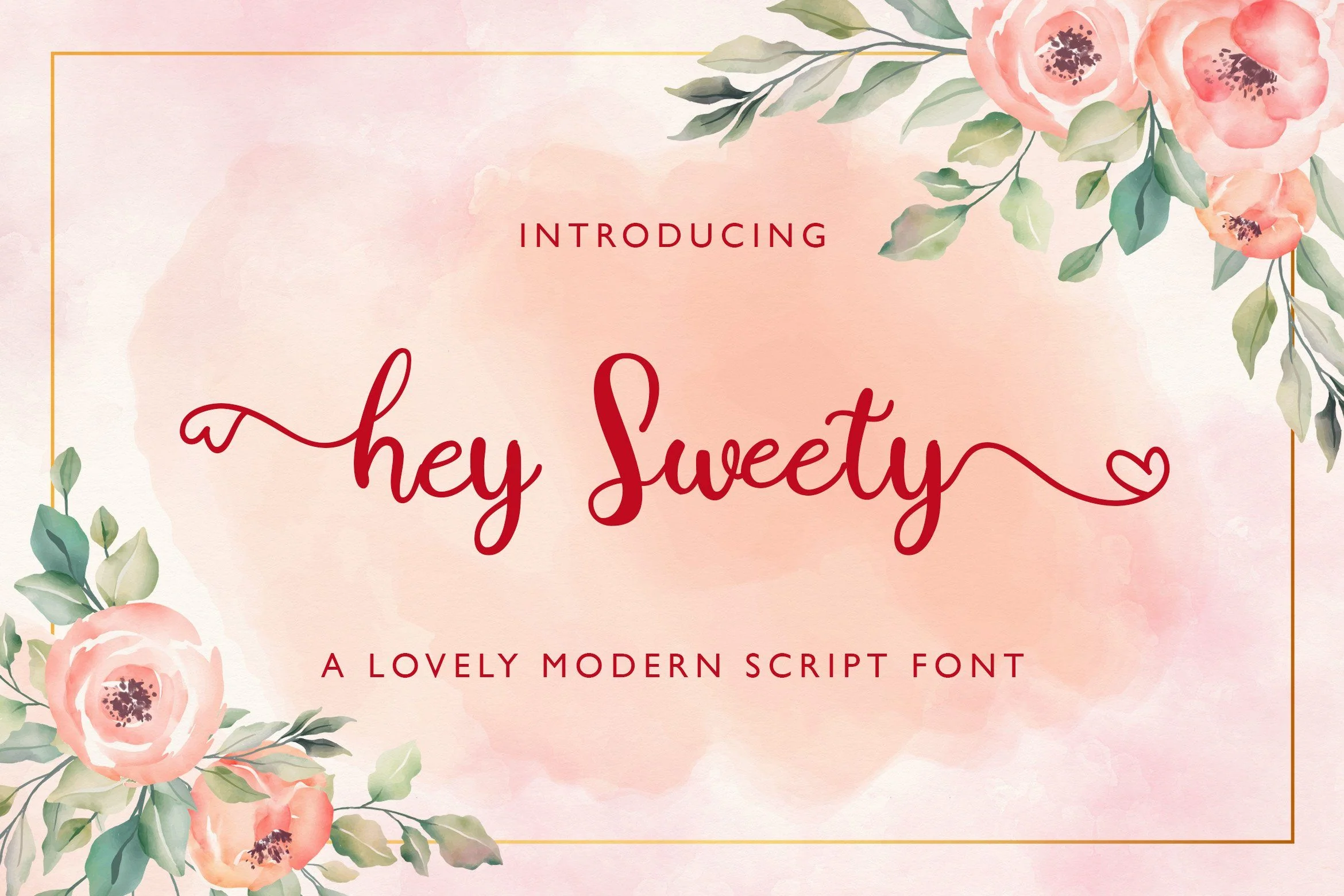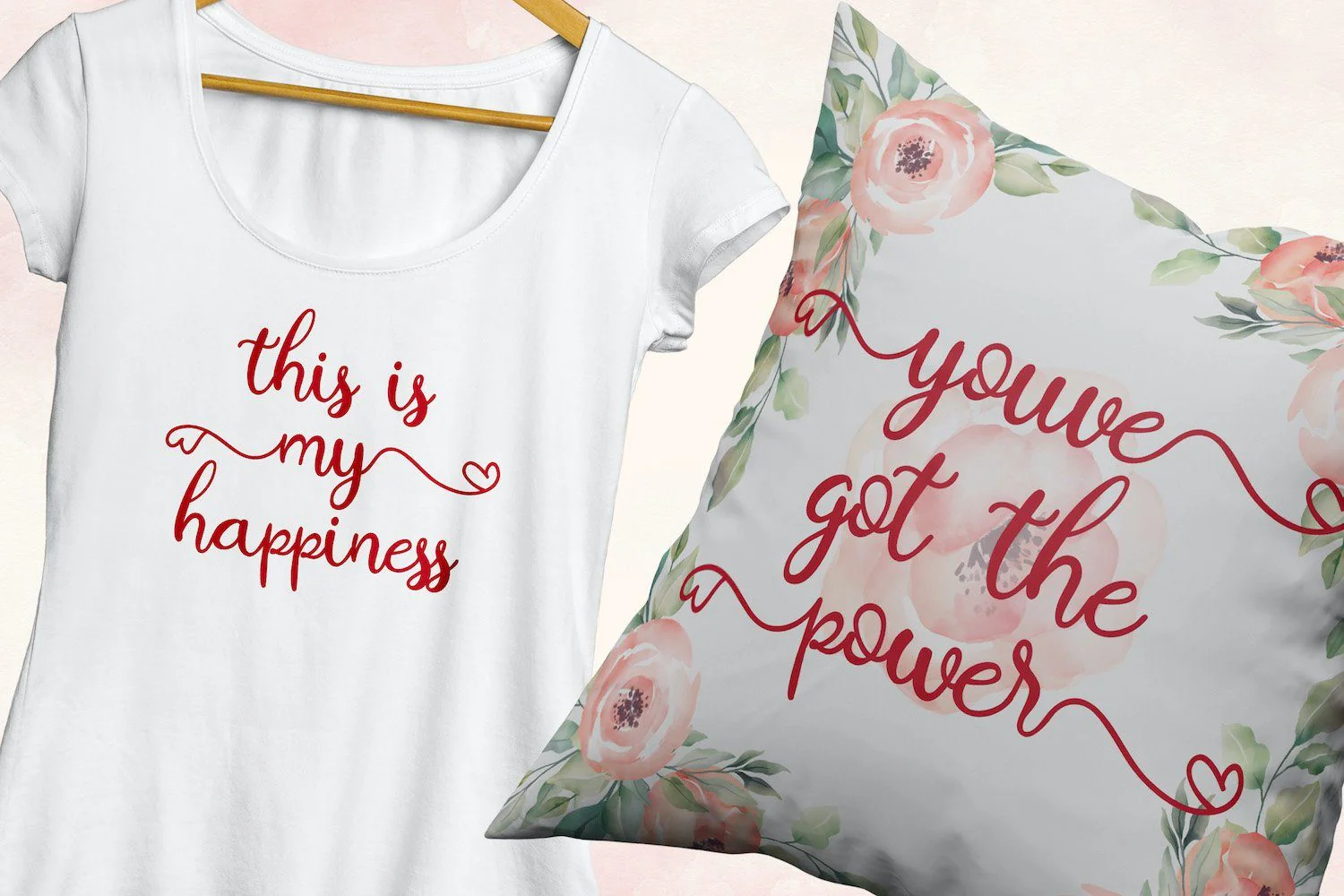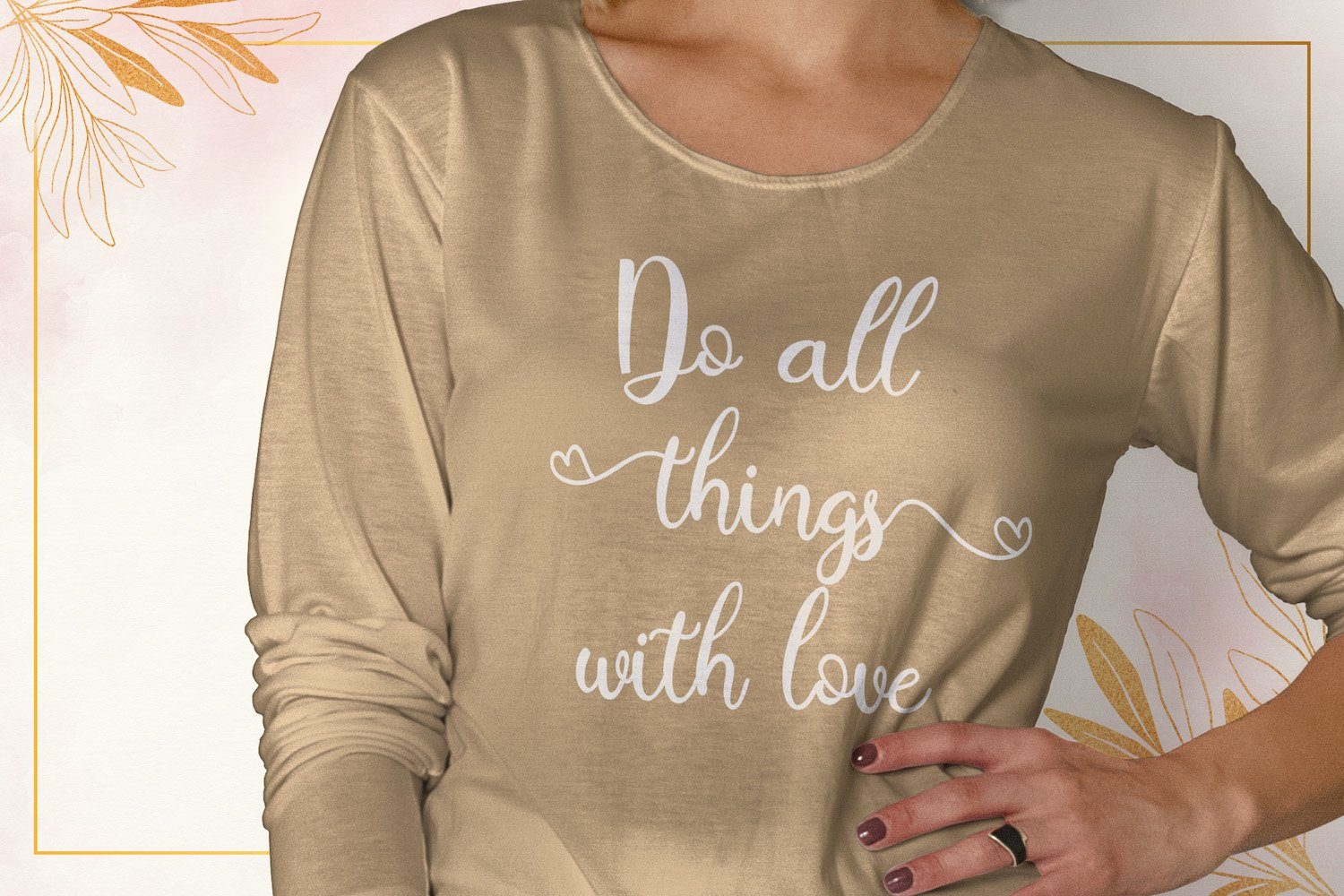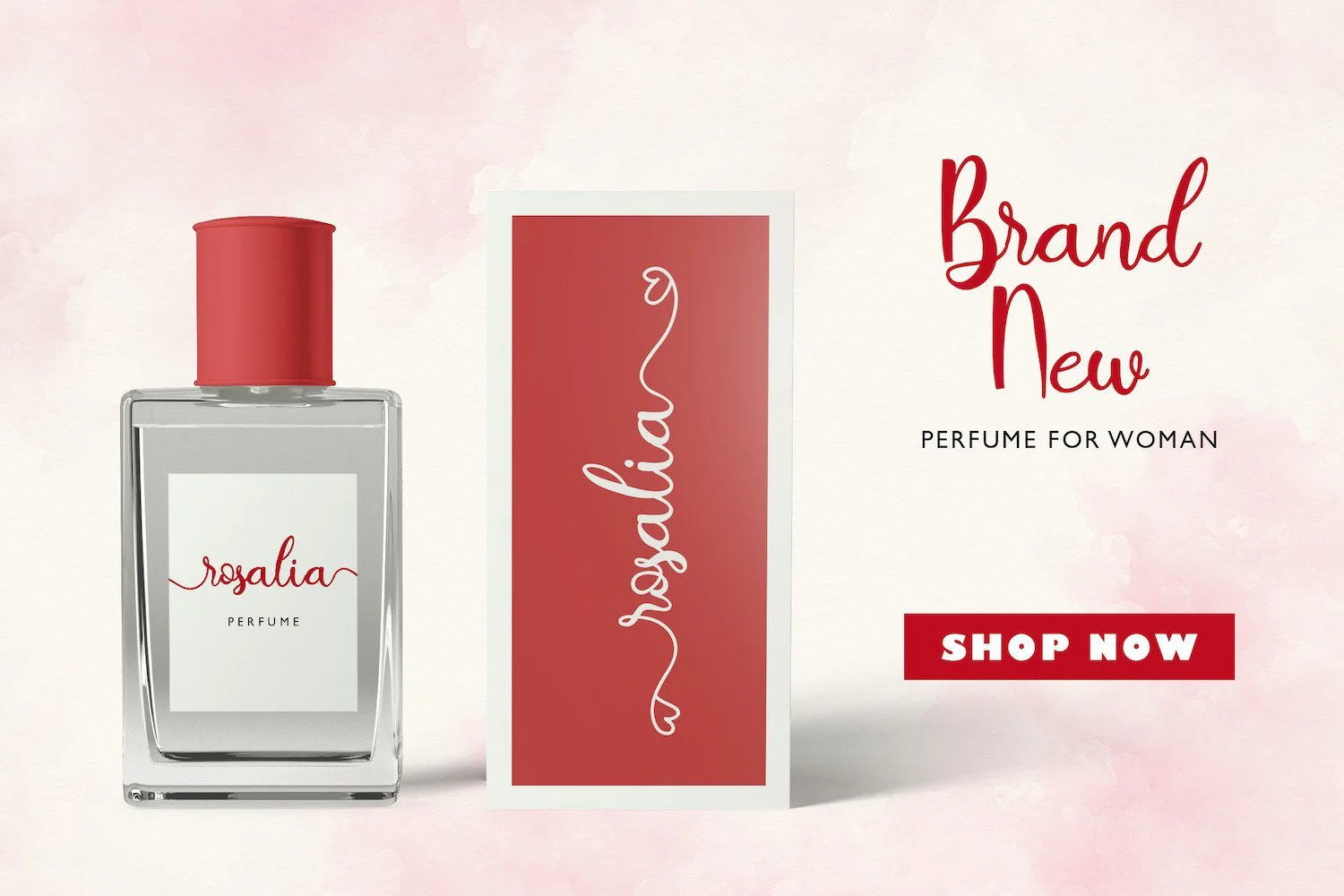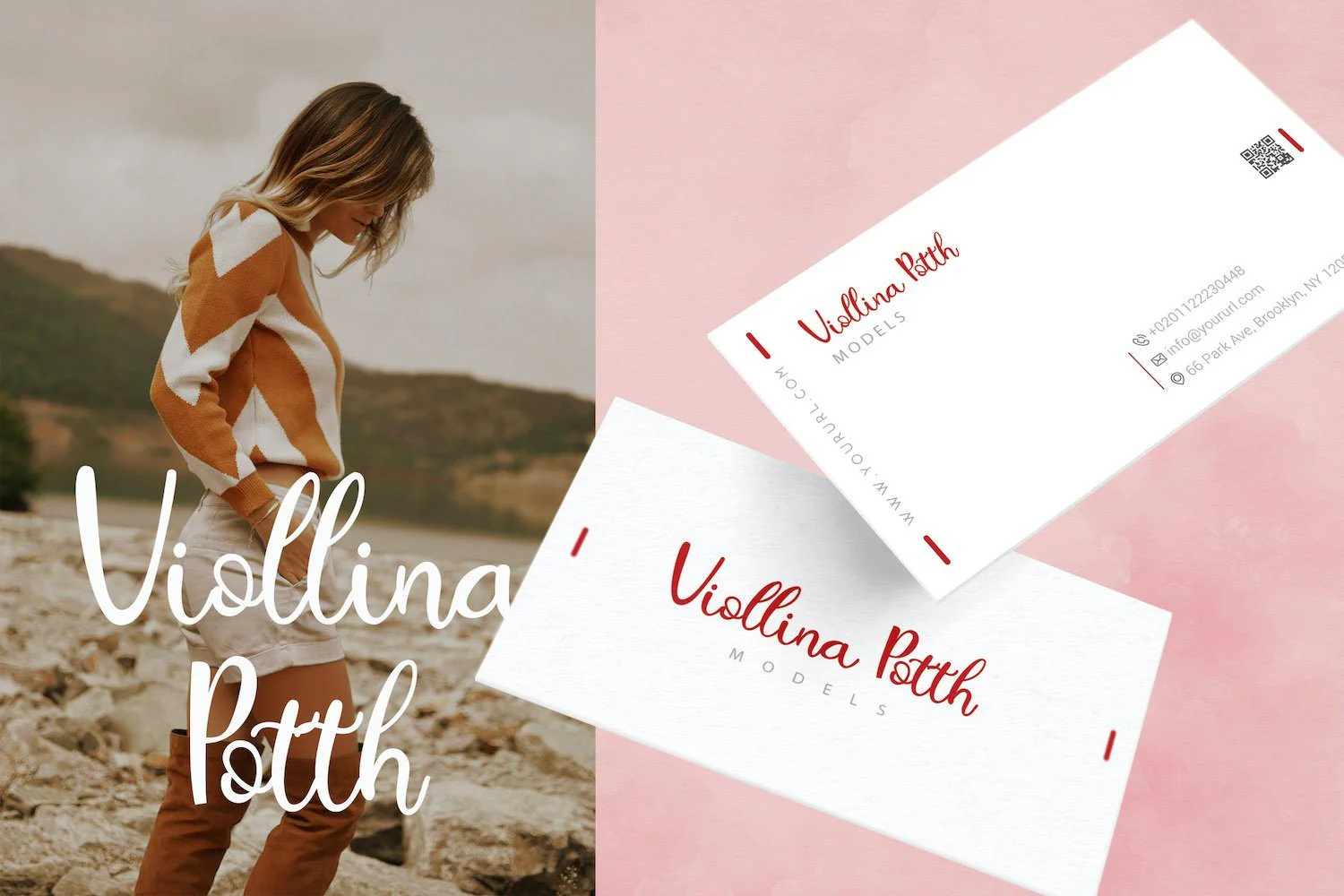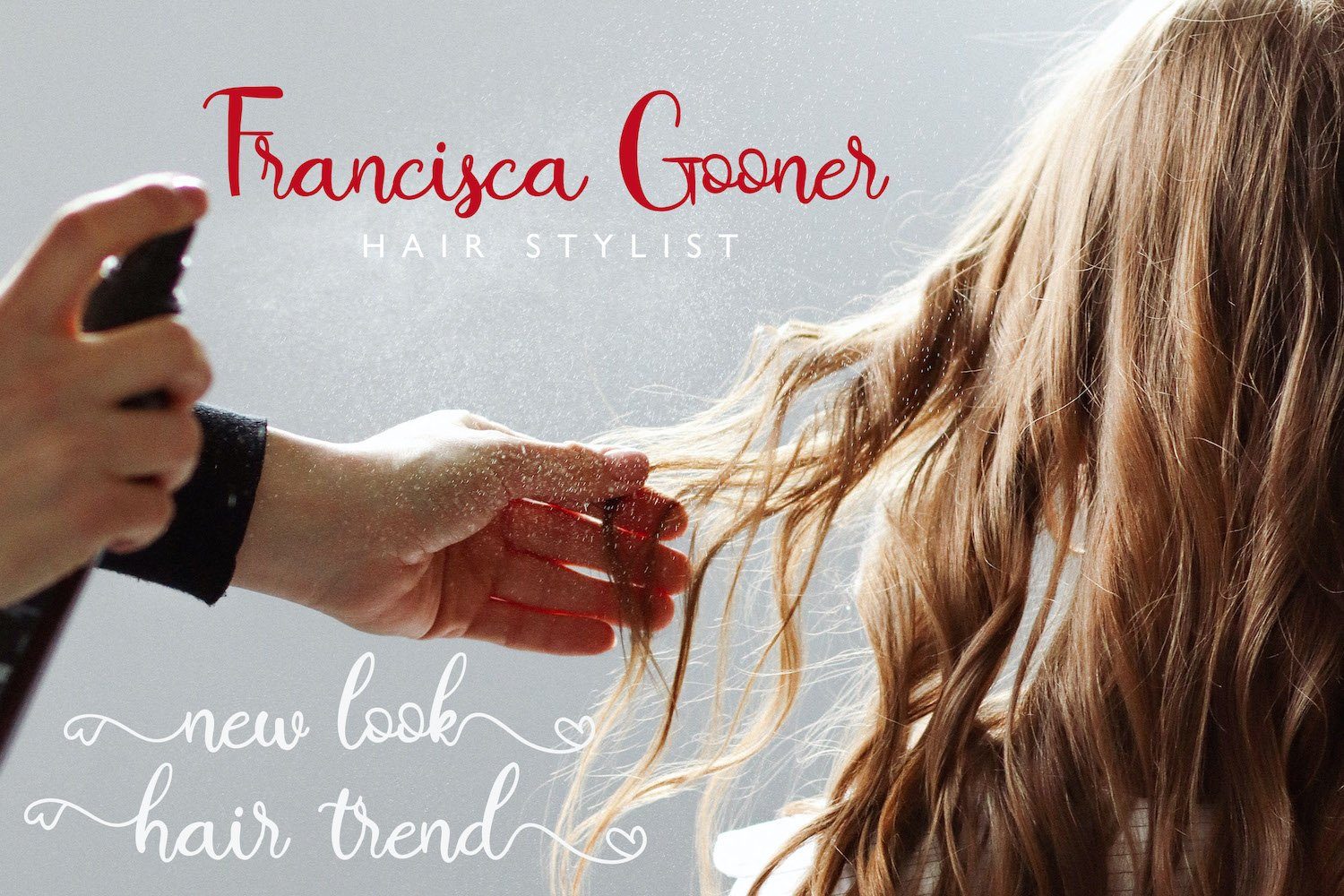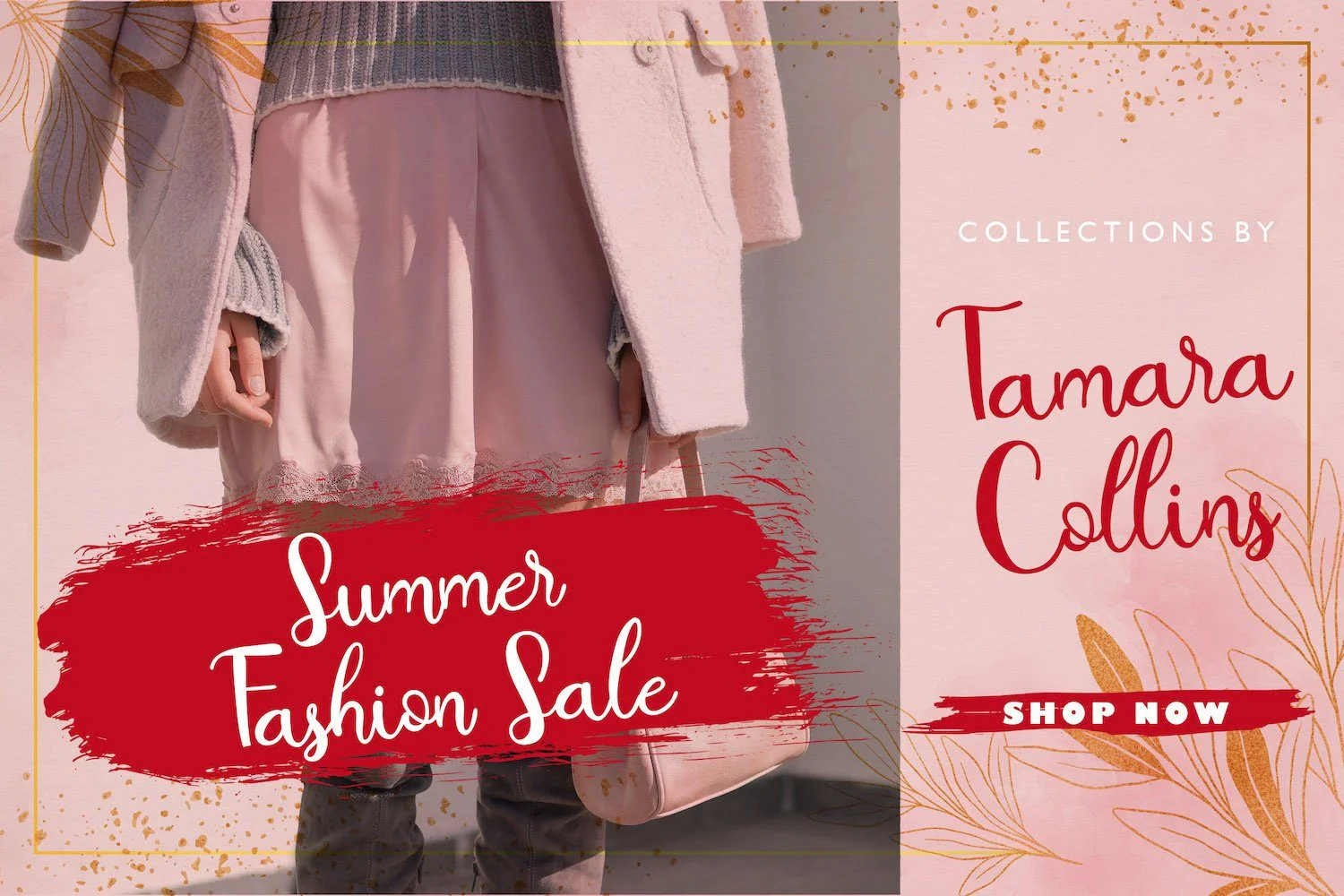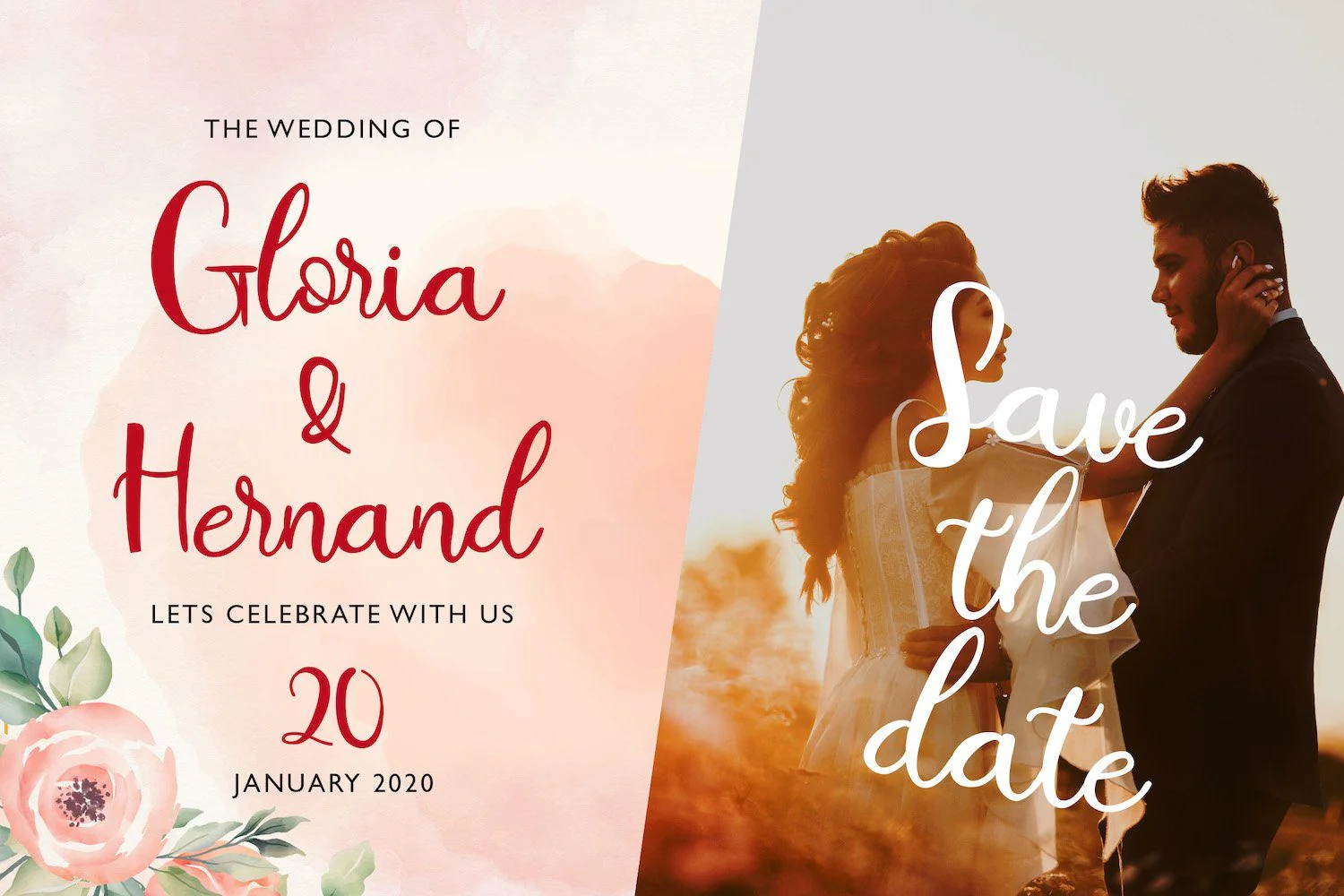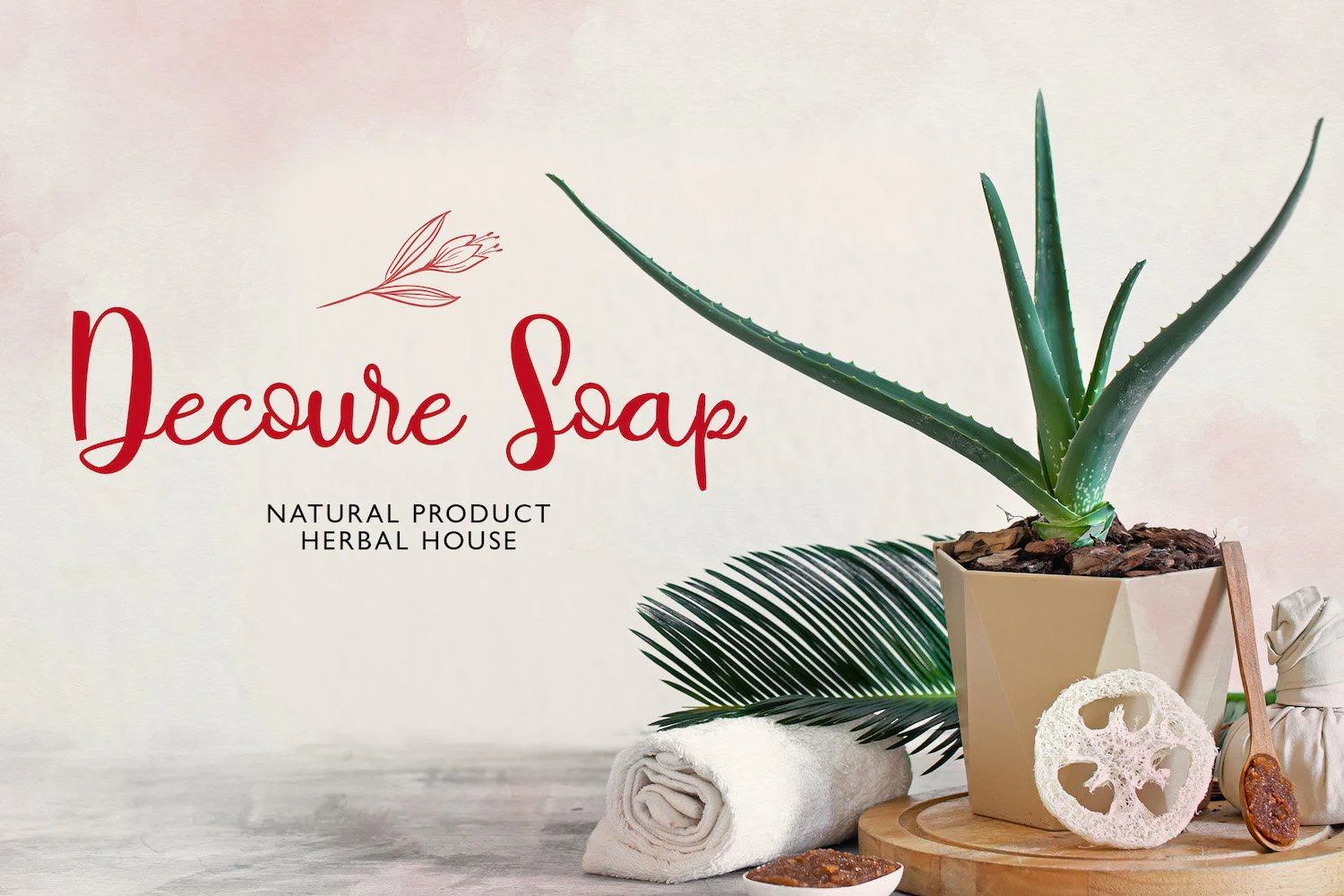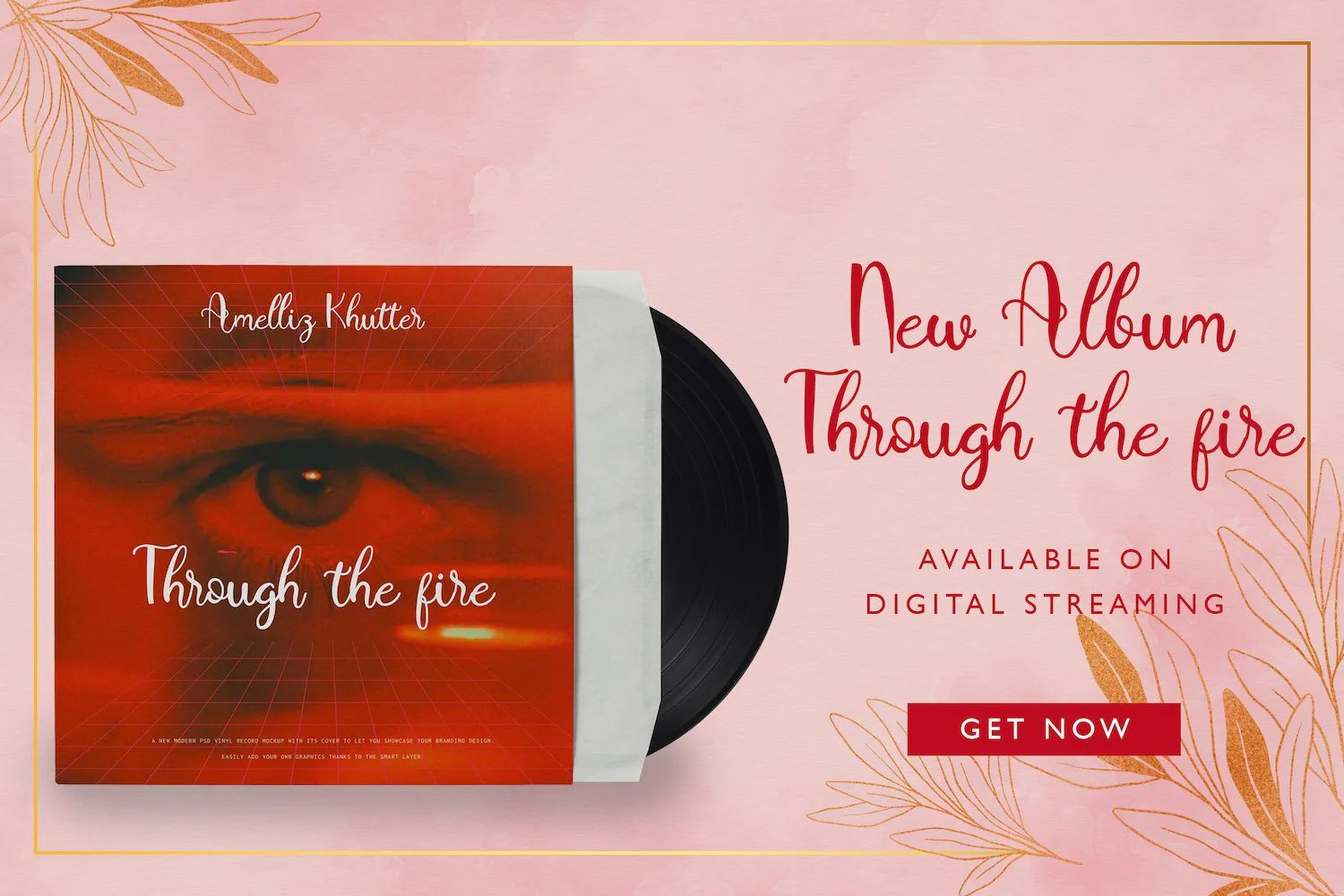
Hey Sweety - Modern Script Font
Introducing Hey Sweety - Modern Script Font
Hey Sweety feels equally charming and elegant. It looks stunning on wedding invitations, thank you cards, quotes, greeting cards, logos, business cards and every other design which needs a handwritten touch.
Introducing Hey Sweety - Modern Script Font
Hey Sweety feels equally charming and elegant. It looks stunning on wedding invitations, thank you cards, quotes, greeting cards, logos, business cards and every other design which needs a handwritten touch.